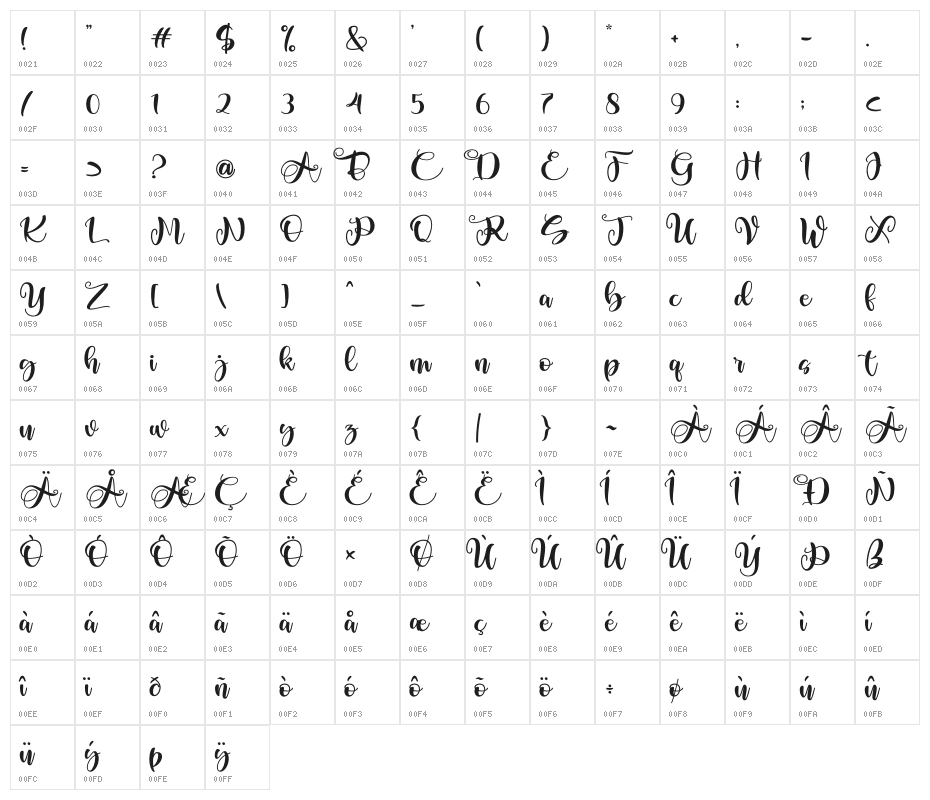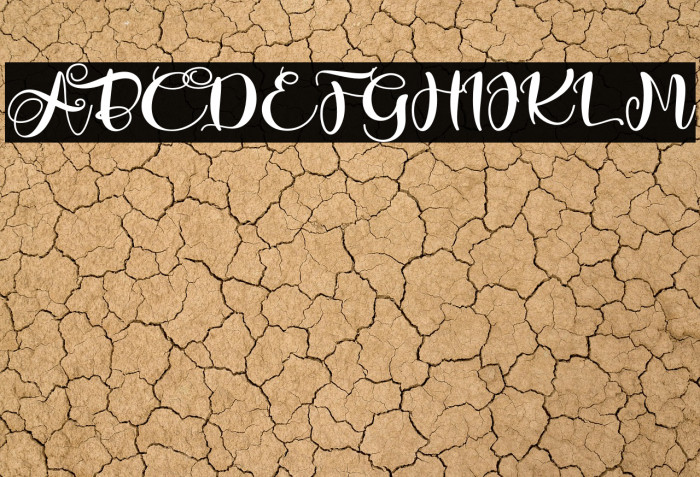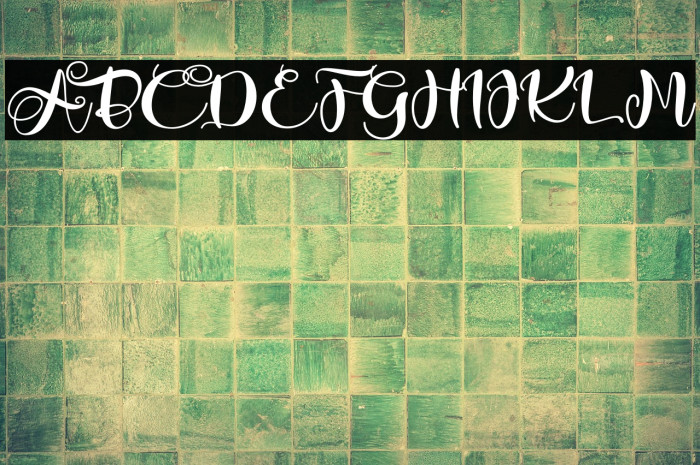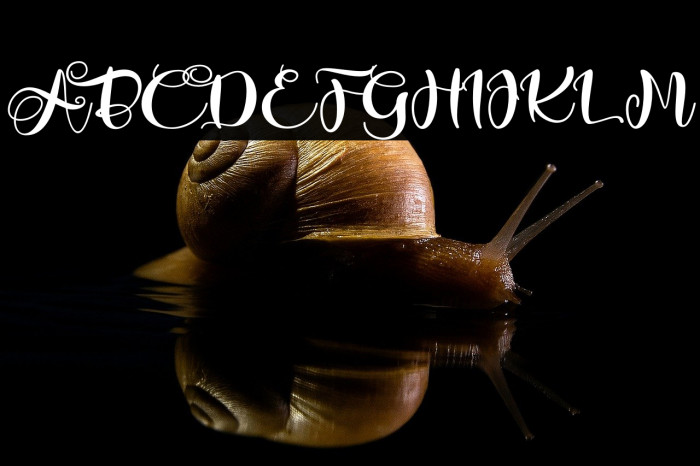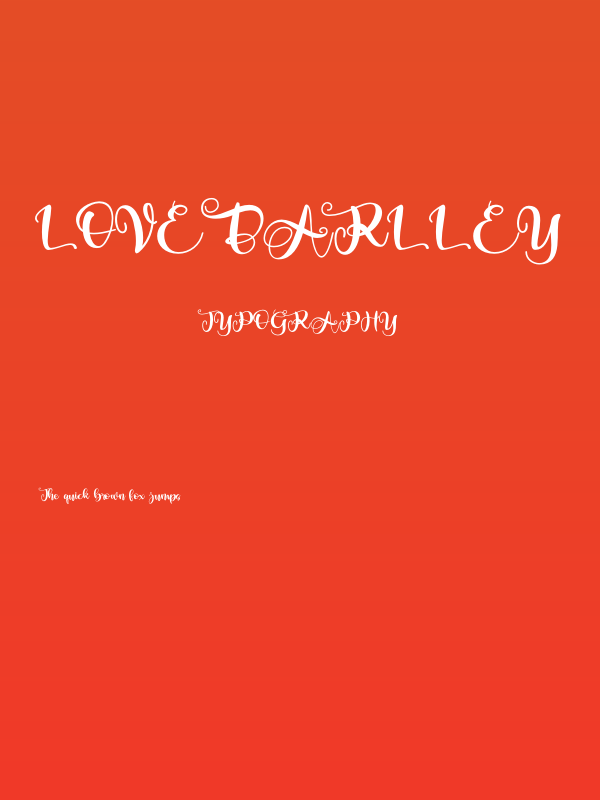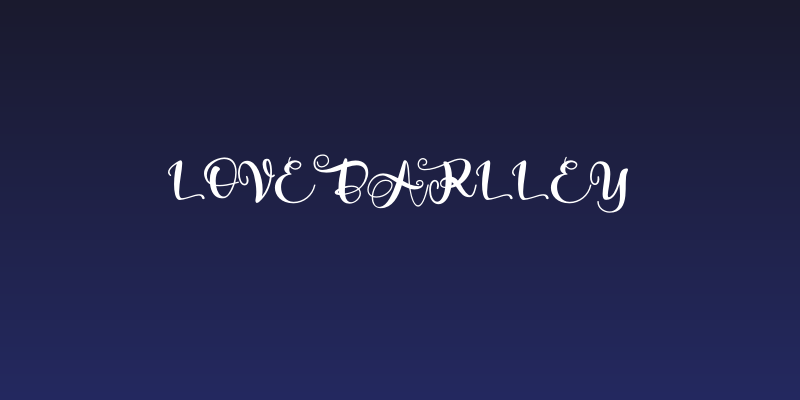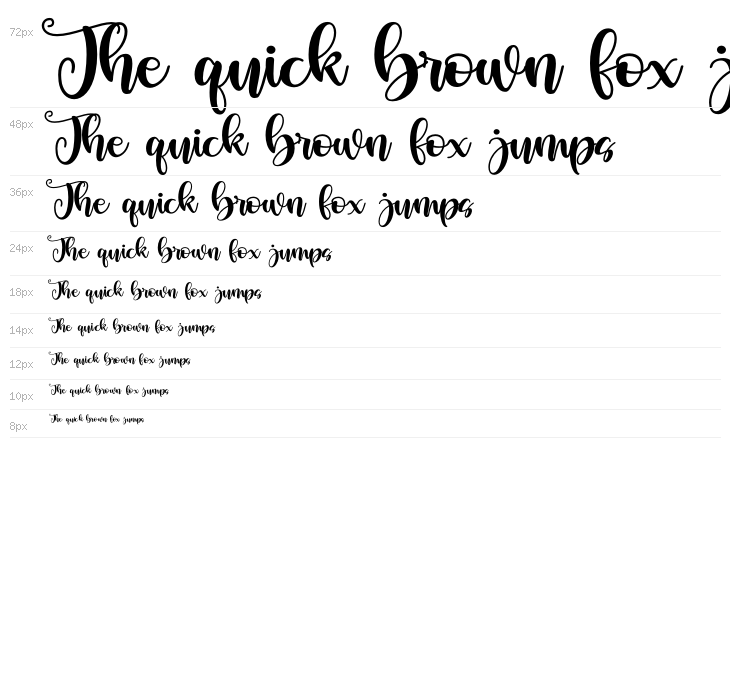
love barlley Font
love barlley Description
This font exudes a playful and elegant script style, characterized by its flowing, interconnected letters and decorative swashes. The uppercase letters are particularly ornate, featuring loops and curls that add a whimsical touch. The lowercase letters maintain a smooth, cursive flow, making it suitable for creative and artistic projects. The numerals are consistent with the script style, offering a cohesive look. Special characters are designed with the same flair, ensuring a harmonious appearance across all text elements.